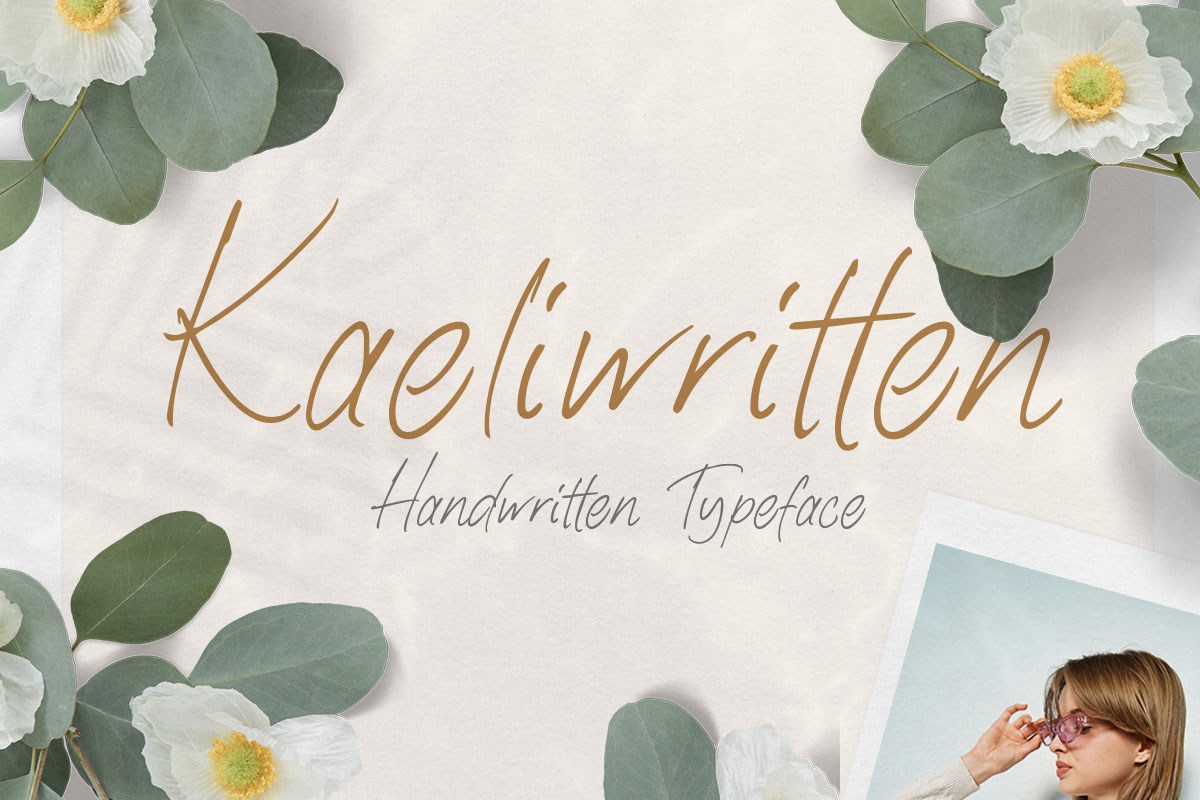
Kaeliwritten Font
Perfect for invitations, greeting cards, branding, logos, and social media posts.
The Kaeliwritten Font excites designers with its charming, handwritten script style that brings a personal and warm touch to any design.
Font families: Kaeliwritten Regular, Kaeliwritten Bold.
The Kaeliwritten Font Free Download is a beautifully flowing script typeface featuring smooth, natural strokes, ideal for wedding invitations, lifestyle branding, and creative packaging.
One of the key strengths of Kaeliwritten Font is its authentic handwritten feel that adds friendliness and elegance, while remaining highly legible across different formats.
In branding, Kaeliwritten communicates warmth, creativity, and approachability. It pairs wonderfully with soft color palettes, floral elements, and minimalist layouts to create inviting visuals.
For digital projects, this font enhances website headers, social media graphics, and email marketing with a personalized and stylish flair.